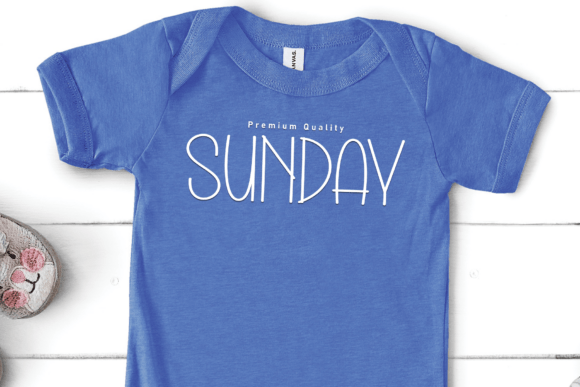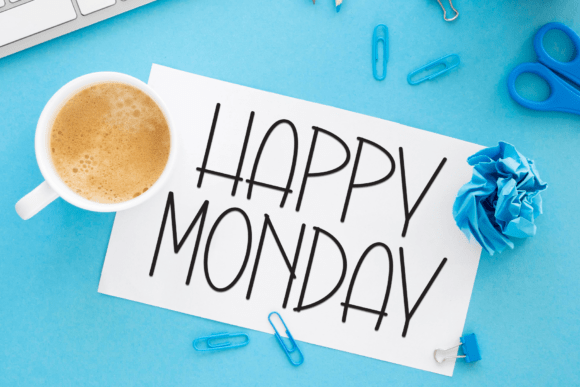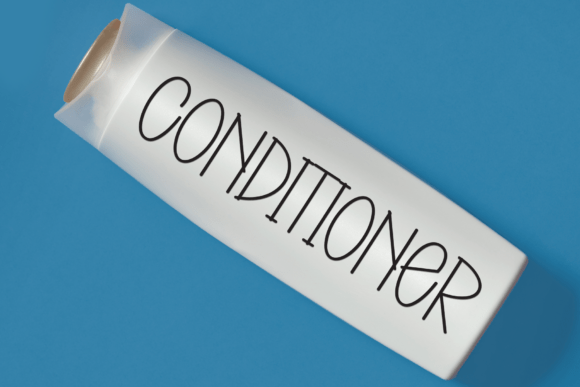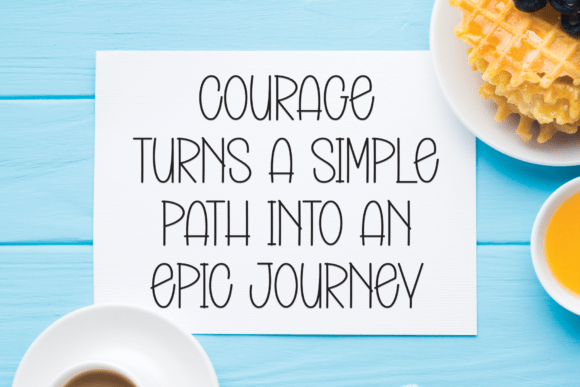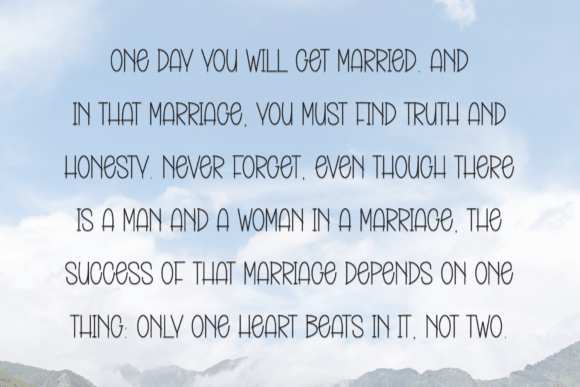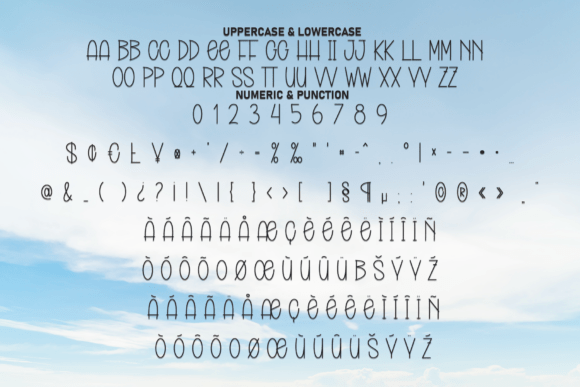
Introduction to Love Dreaming Font
Have you ever stumbled upon a beautiful handwritten note or a lovingly crafted card, and instantly felt a surge of inspiration for your next creative project? For designers and artists, these moments are a constant source of joy and motivation. And now, we’re thrilled to introduce the Love Dreaming Font, a handcrafted display font that captures the essence of spontaneous penmanship and exudes a cozy, inviting allure.
This charming typeface is a valuable addition to any designer’s toolkit, offering a unique and high-quality design resource that can elevate your cherished creations. From wedding invitations to heartfelt greeting cards, the Love Dreaming Font adds a touch of whimsical charm that’s sure to make your designs stand out. And the best part? You can download it for free, with a transparent background, making it perfect for all your creative endeavors.
Key Features of Love Dreaming Font
- Unique, hand-drawn design: The Love Dreaming Font is a beautiful, high-quality font perfect for creative projects that require a touch of elegance and whimsy.
- Perfect for wedding invitations, cards, and other romantic designs: The Love Dreaming Font’s dreamy, ethereal quality makes it an ideal choice for wedding invitations, cards, and other romantic designs.
Honest Review: Love Dreaming Font
- ✨ High quality: The font is crisp and clear, making it perfect for a variety of creative projects.
- ✨ Transparent background: The font has a beautiful, transparent background that allows for seamless integration with any design.
- ✨ Unique style: The Love Dreaming Font has a distinct, whimsical style that’s sure to add a touch of personality to any project.
- ⚠️ Limited character set: The font’s character set is somewhat limited, which may be a issue for projects that require a wide range of characters.
- ⚠️ Not suitable for body text: While the font is perfect for headings and titles, it may not be the best choice for body text due to its whimsical style.
Overall, I’m impressed with the Love Dreaming Font. It’s a great choice for creative projects that require a high-quality, unique font. With a little planning and creativity, you can work around the font’s limitations and achieve amazing results.
The Love Dreaming Font is a versatile design resource that can be used in a variety of creative projects, including:
- Wedding invitations and decorations
- Photography captions and quotes
- Branding and marketing materials